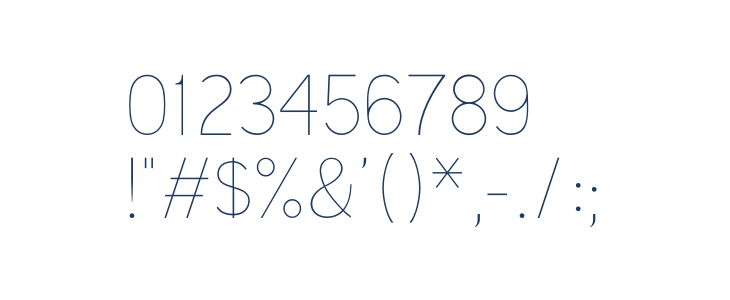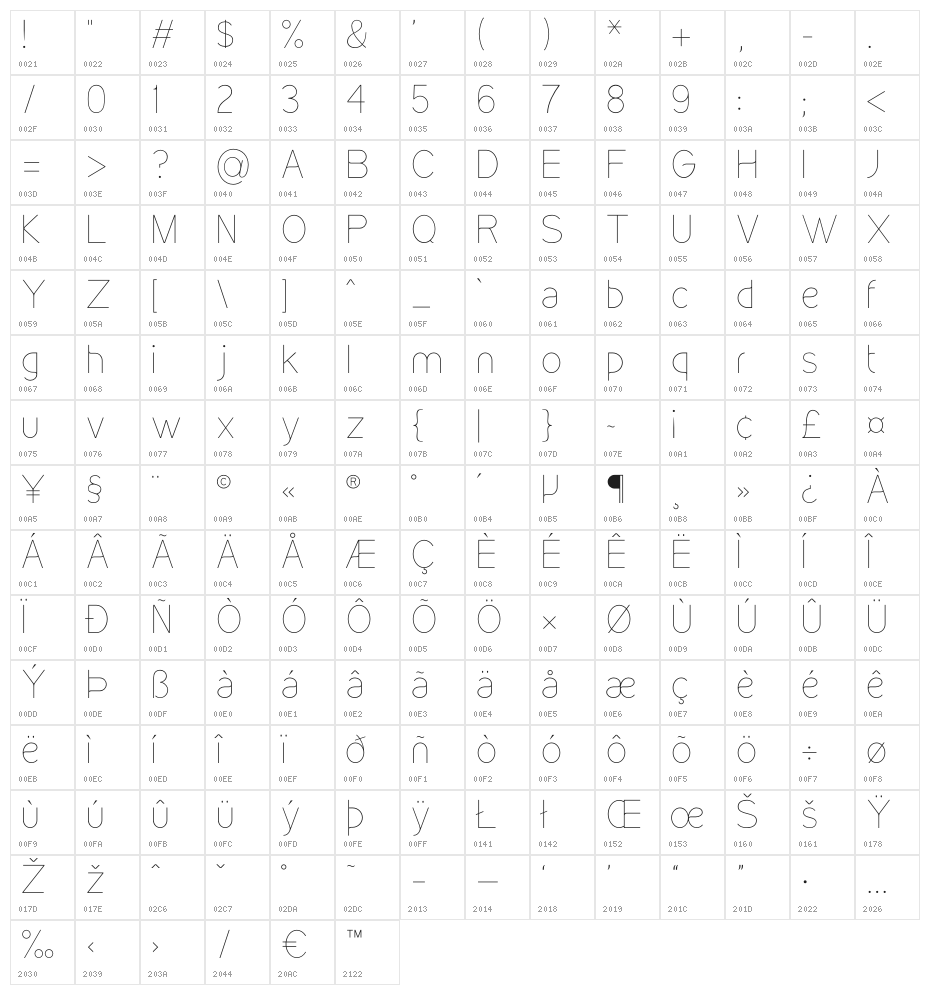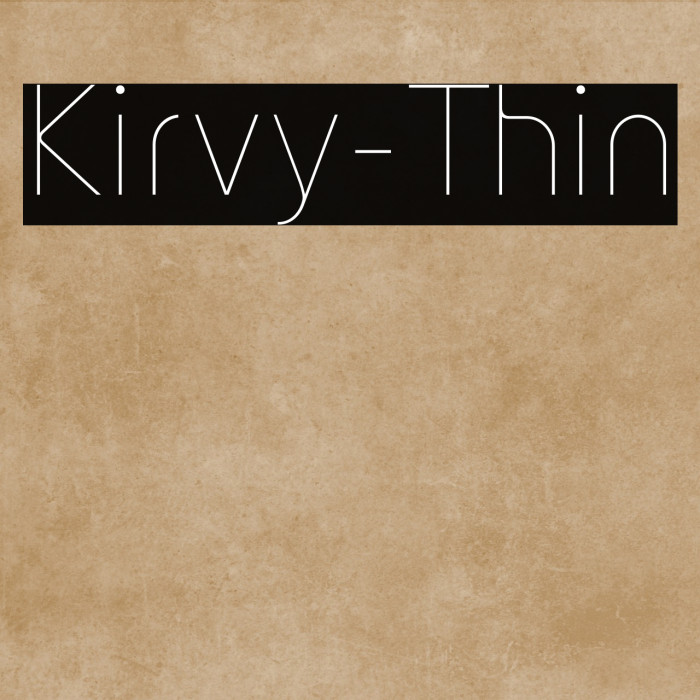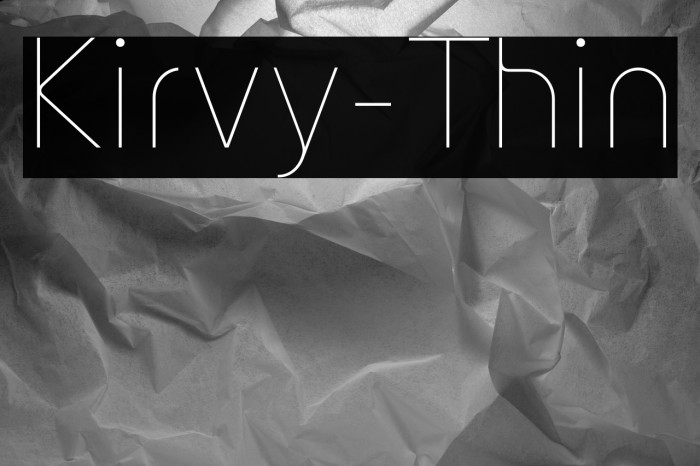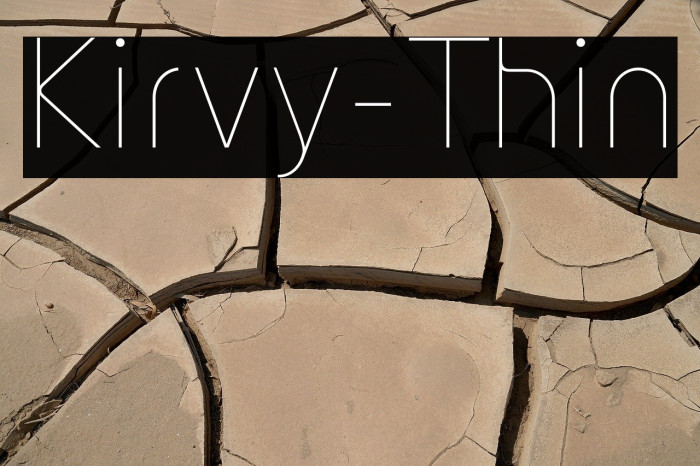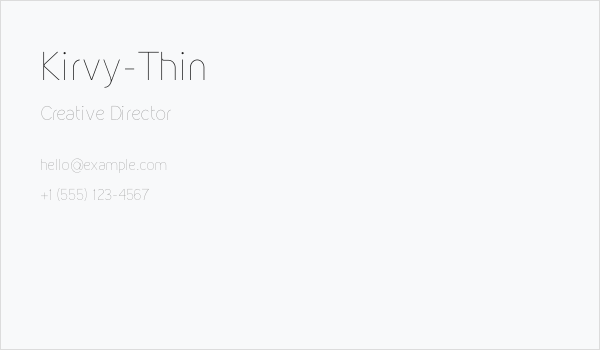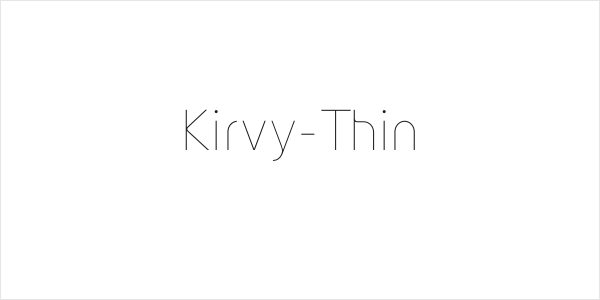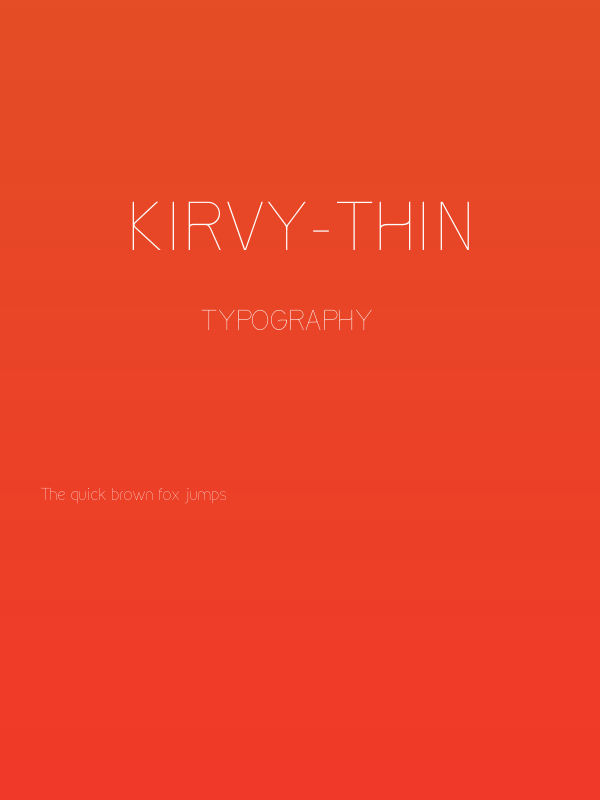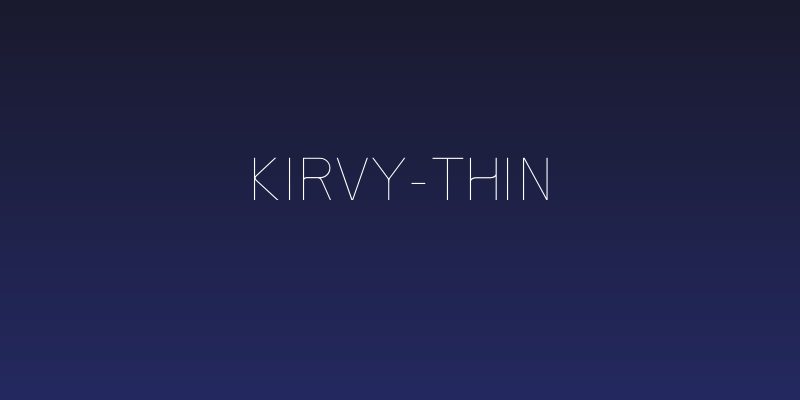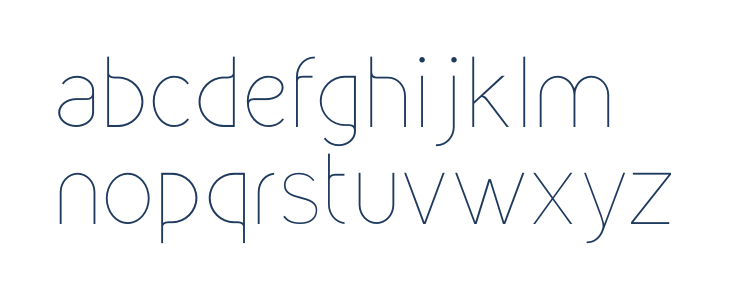
Kirvy-Thin Font
Kirvy-Thin Description
This font features a clean and minimalist design with thin, uniform strokes that create an airy and modern appearance. The characters are evenly spaced, contributing to its readability and elegance. The uppercase and lowercase letters maintain a consistent style, with rounded edges and a geometric structure. The numerals and special characters are designed to match the overall aesthetic, ensuring a cohesive look across all text elements. This font is ideal for projects that require a sleek and contemporary feel, such as digital interfaces, branding, and editorial design.
| Proposed Projects | Ideal for digital interfaces, branding, editorial design, and minimalist projects. |